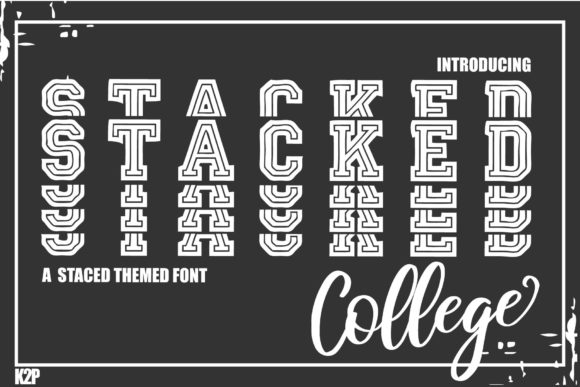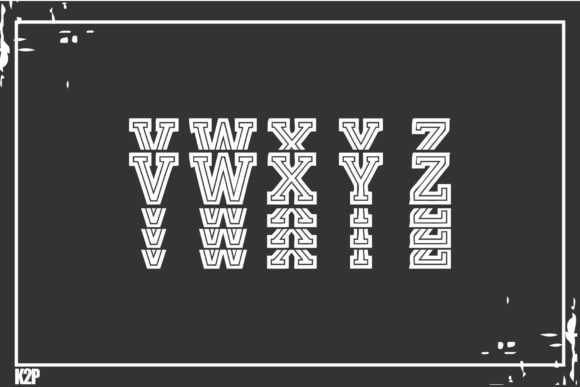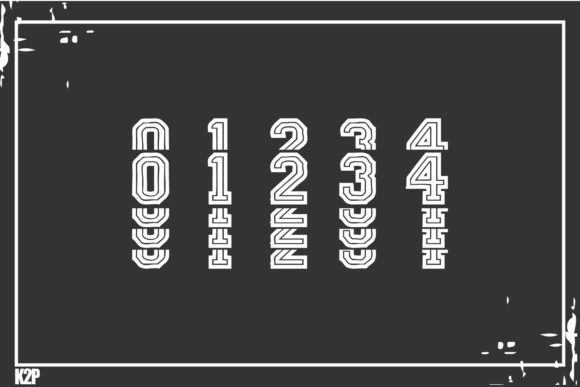
Stacked College Font
Stacked College is a bold and authentic display font. It has an incredibly cool style and it will make each of your designs stand out. Use it for sport, racing designs, or nearly anything related to speed and power.